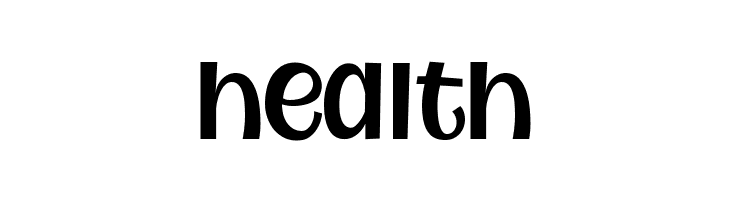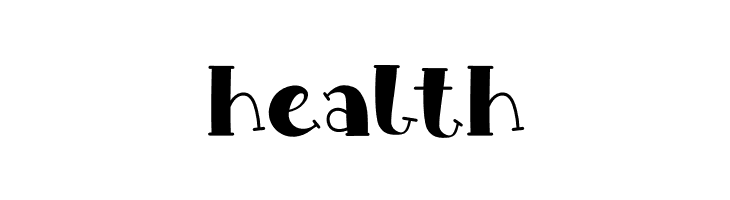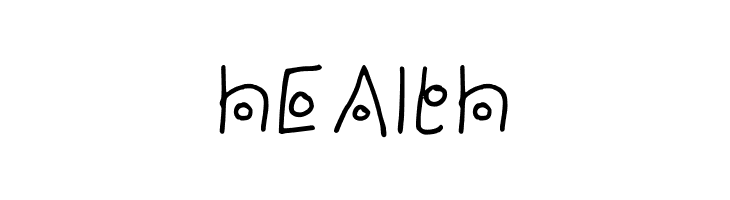
( Fonts by Loraine Wauer Ferus www.billybear4kids.com )
A bold, playful font with thick, rounded characters and a whimsical style.
( Fonts by Phillip Cavette )
A playful, bold font with a hand-drawn, whimsical style.
A playful, hand-drawn font with bold outlines and a whimsical style.
A playful, 3D-effect font with bold outlines and a whimsical style.
( Fonts by Steve Ferrera )
A whimsical and playful font with quirky letterforms and dynamic strokes.
( Fonts by Steve Ferrera )
A playful and whimsical font with quirky, bold letterforms and unique character designs.
( Fonts by Jenny Norton )
A playful, hand-drawn font with bold, irregular strokes and whimsical serifs.
( Fonts by Luis Angel Uribe - luisangeluribe.wordpress.com )
A whimsical, decorative font with playful, creature-like embellishments.
( Fonts by Rodrigo German - RASDESIGN )
A playful, hand-drawn font with bold, rounded letters and a whimsical style.
A playful, cloud-inspired font with a bold, three-dimensional style.
A bold, playful, and decorative font with thick, rounded strokes and whimsical curves.
A bold, playful font with thick, exaggerated curves and a whimsical style.
A bold, playful font with a whimsical, cartoon-like style.
A bold, playful font with rounded edges and a whimsical style.
( Fonts by Erico Lebedenco - www.ericolebedenco.com )
A whimsical serif font with decorative and magical elements.
A playful, condensed font with bold, rounded characters and a whimsical, hand-drawn style.
( Fonts by www.abecedarienne.com )
A geometric, precise Latin capital font with classical design elements.